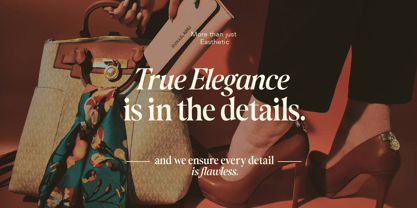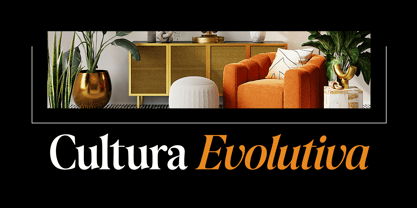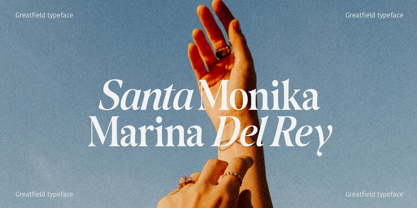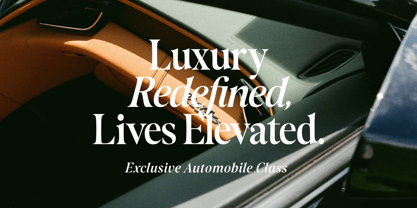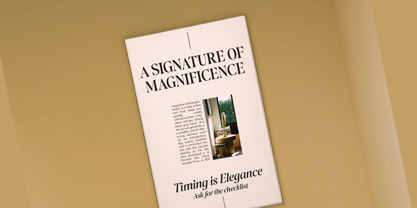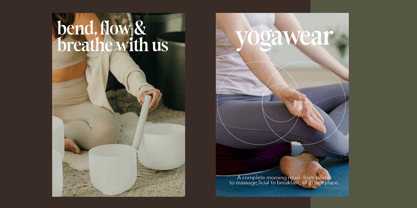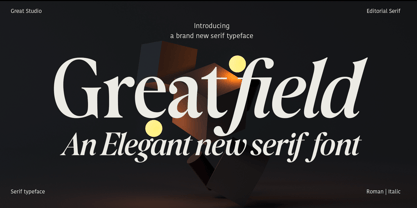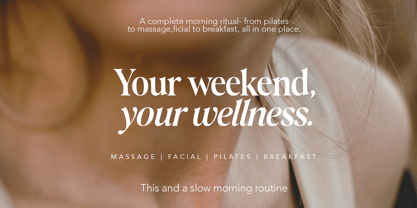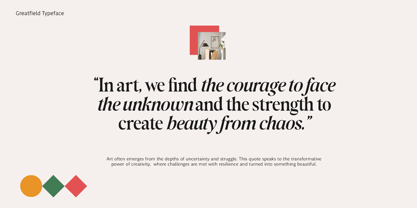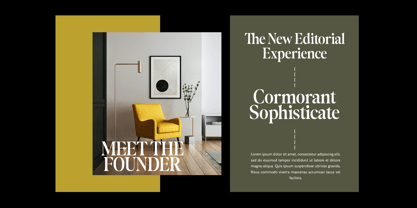
Greatfield
The Greatfield Font Family was designed by Mulkan Nazir and published by Great Studio. Greatfield contains 2 styles and family package options. More about this family
Greatfield serif is a sophisticated serif typeface that embodies timeless elegance with a modern editorial touch. Designed with graceful curves, refined contrast, and beautifully crafted italic styles, this typeface delivers a luxurious aesthetic that instantly elevates any creative project.
Inspired by classic fashion magazines and contemporary branding, Greatfield combines high-contrast letterforms with delicate serifs to create a font that feels both graceful and confident.
Whether you're designing premium branding, magazine layouts, wedding stationery, or social media content, this typeface brings effortless beauty and professionalism to every composition.
The included Roman and Italic styles work harmoniously together, allowing designers to create expressive typography with striking visual hierarchy and refined sophistication.